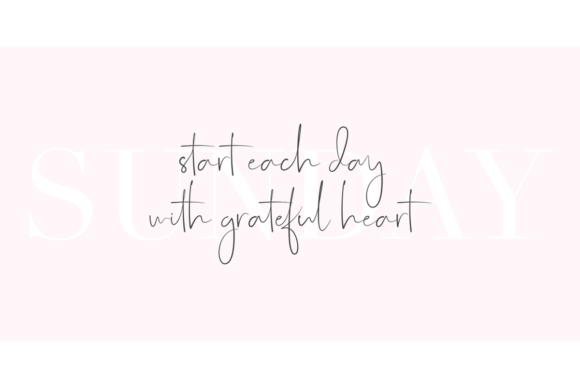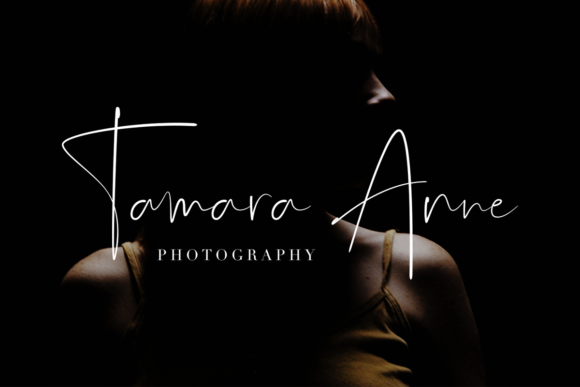
Just Sunday Font
db-ku.com - Script & Handwritten -- Just Sunday is a modern, feminine font. Every single letter has been carefully crafted to make your text look beautiful. With it’s modern script style, Just Sunday is perfect for many different projects such as: logos, photography, watermarks, quotes, blog headers, posters, and much more!